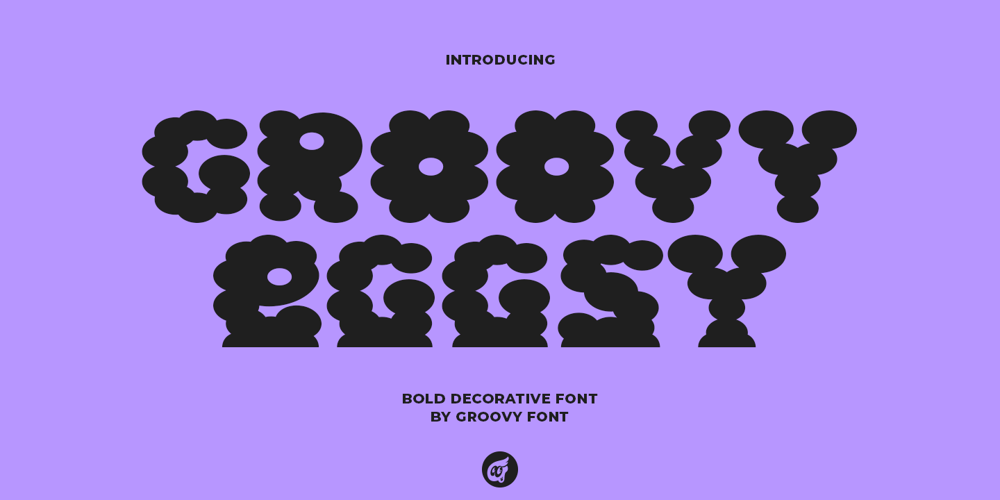
GF Eggsy Font Family was designed by Ahmad Ginanjar Riyadi and published by Groovy Font. GF Eggsy contains 1 styles and family package options. Groovy Eggsy is a bold decorative font with a unique round appearance reminiscent of a cloud. The soft curves and playful design of this font make it perfect for projects that require a fun and whimsical touch. Its boldness adds a striking element to any text, making it stand out with a touch of creativity and charm.What’s you’ll get : – Uppercase, Lowercase, Numeral, Punctuation & Multilingual.For any questions please contact me 🙂Thank You !